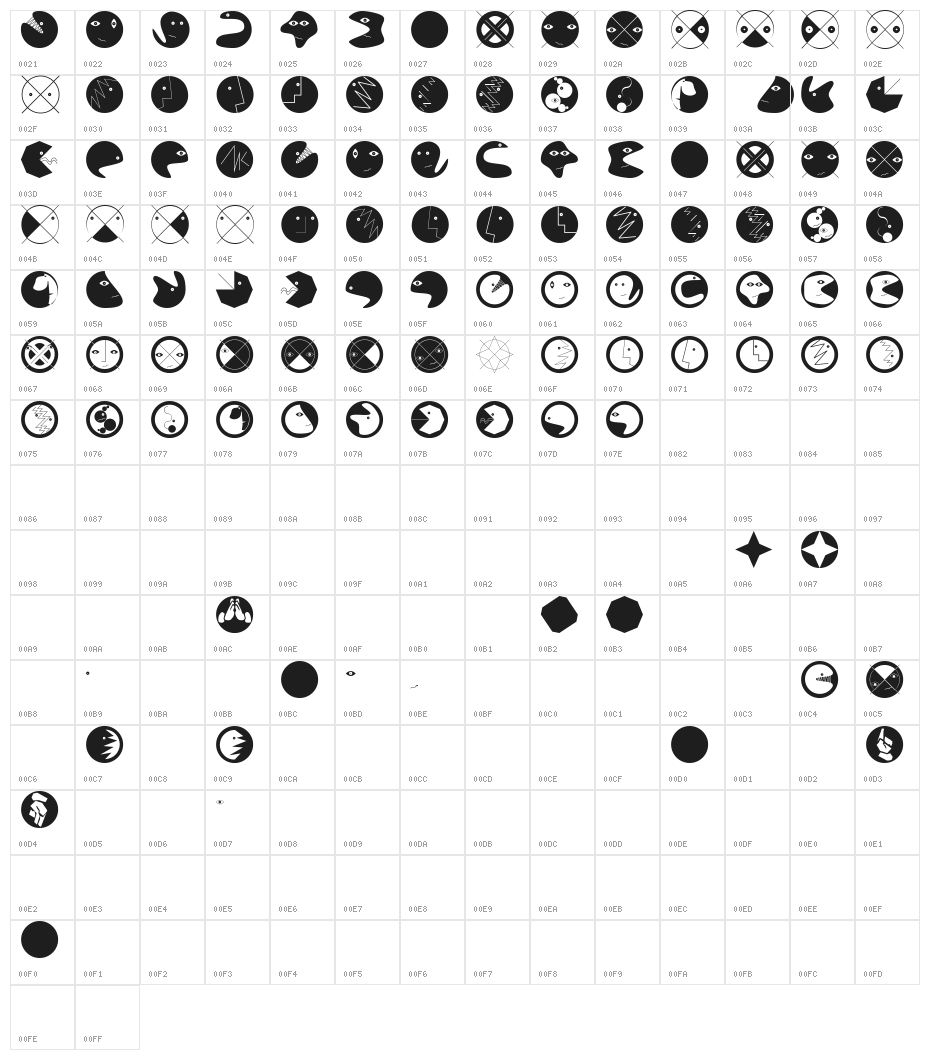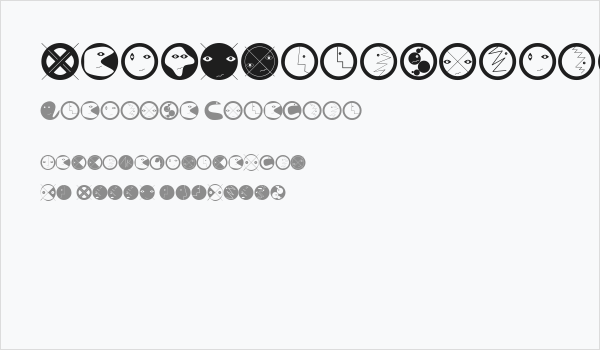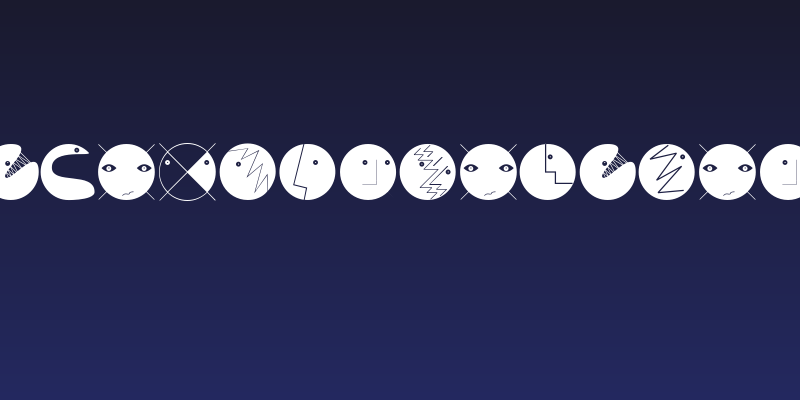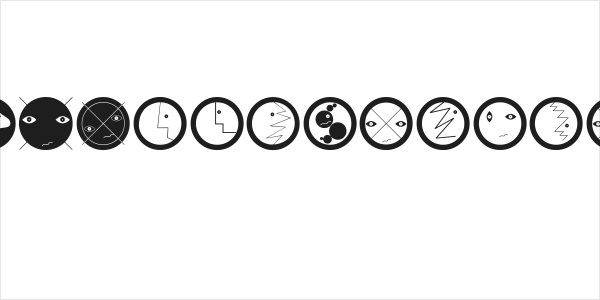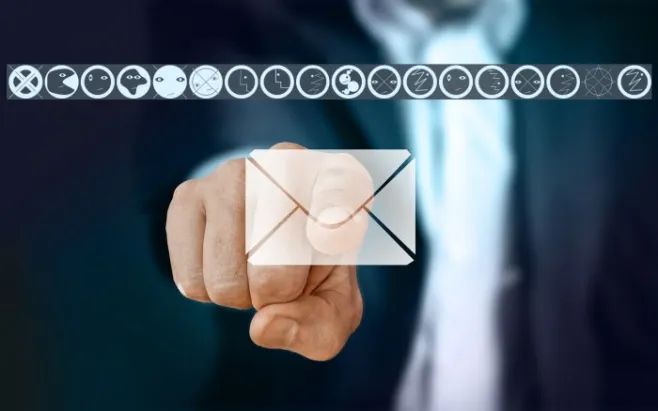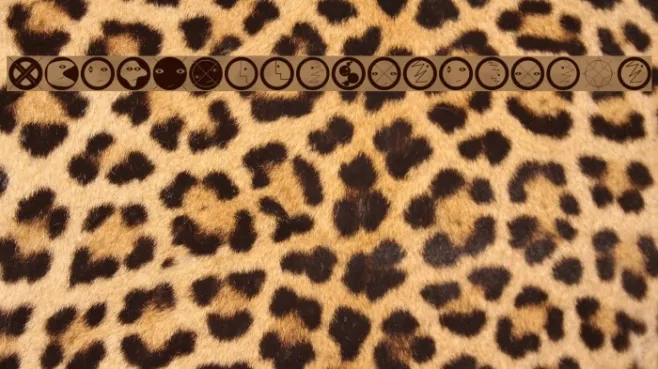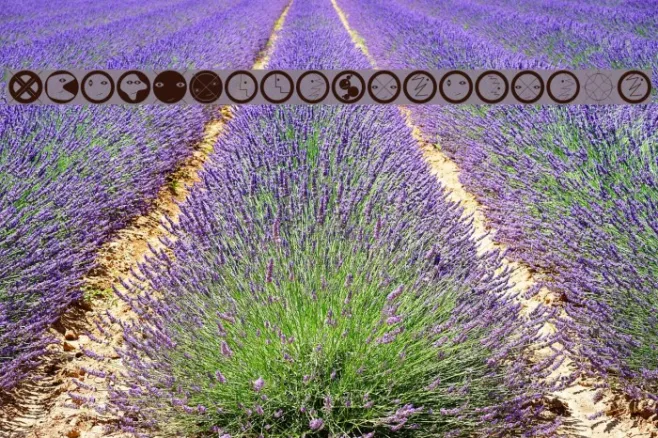
HeadImprovisations Font
HeadImprovisations Description
This font is a highly decorative and abstract design, featuring characters enclosed within circular shapes. Each letter and symbol is uniquely stylized with a combination of geometric patterns and abstract forms, creating a playful and artistic appearance. The characters are bold and prominent, with a high contrast between the black and white elements, making them stand out distinctly. The overall design is unconventional and imaginative, suitable for creative projects that require a unique visual identity.
| Use Case | Logos, Posters, Artistic Projects |
| Proposed Projects | Ideal for creative projects such as album covers, posters, art installations, and branding materials that seek a unique and artistic flair. |